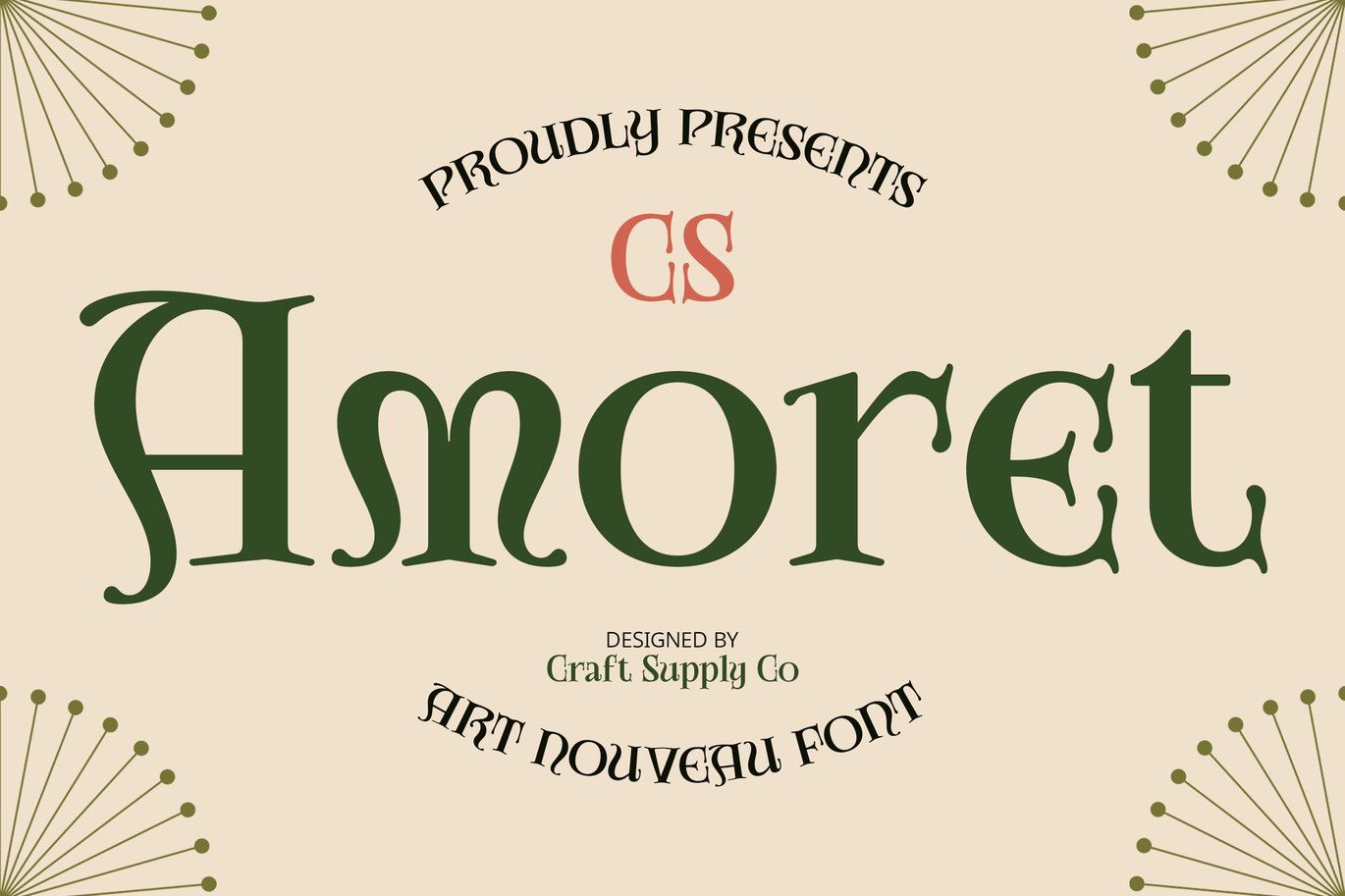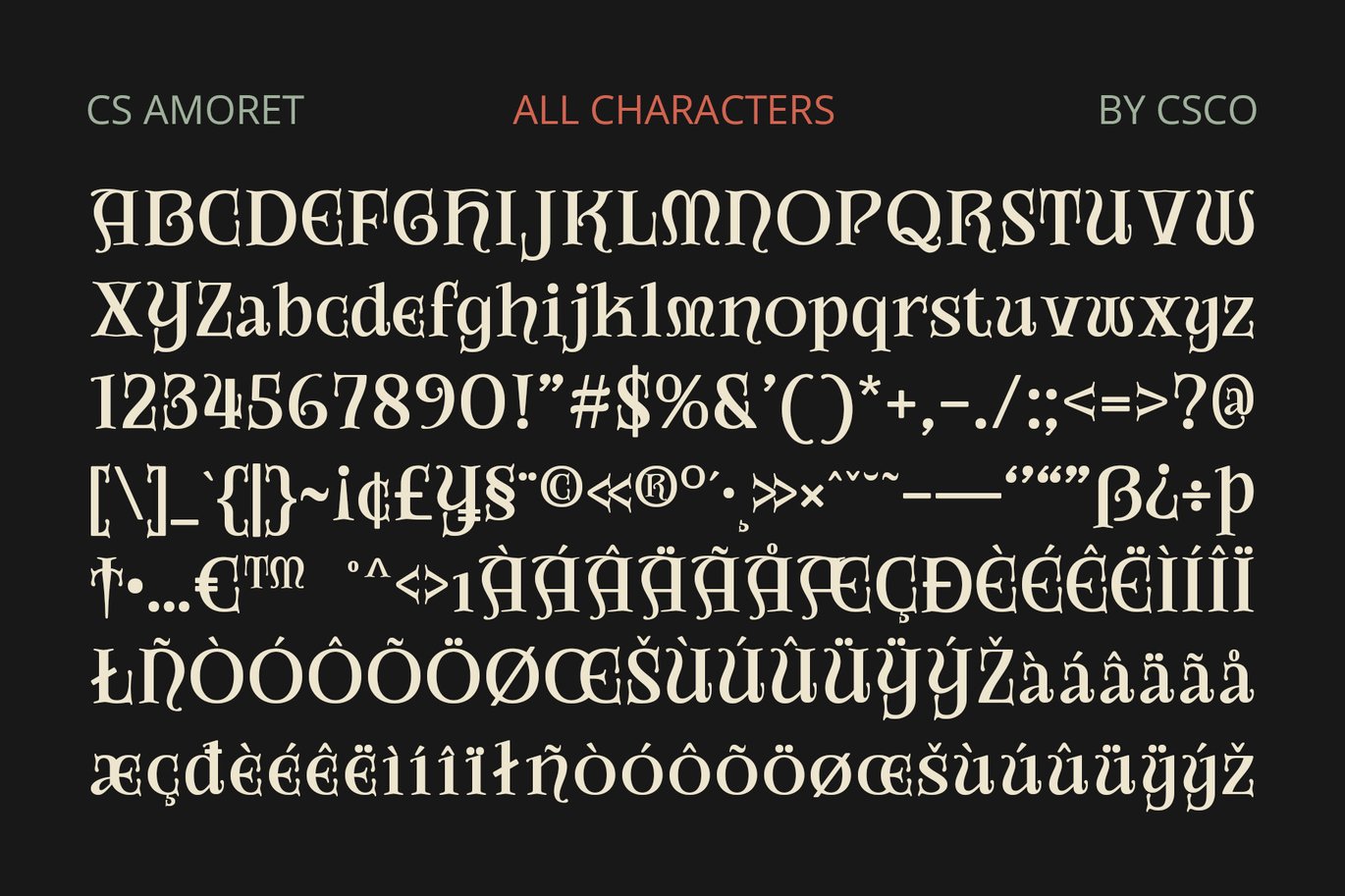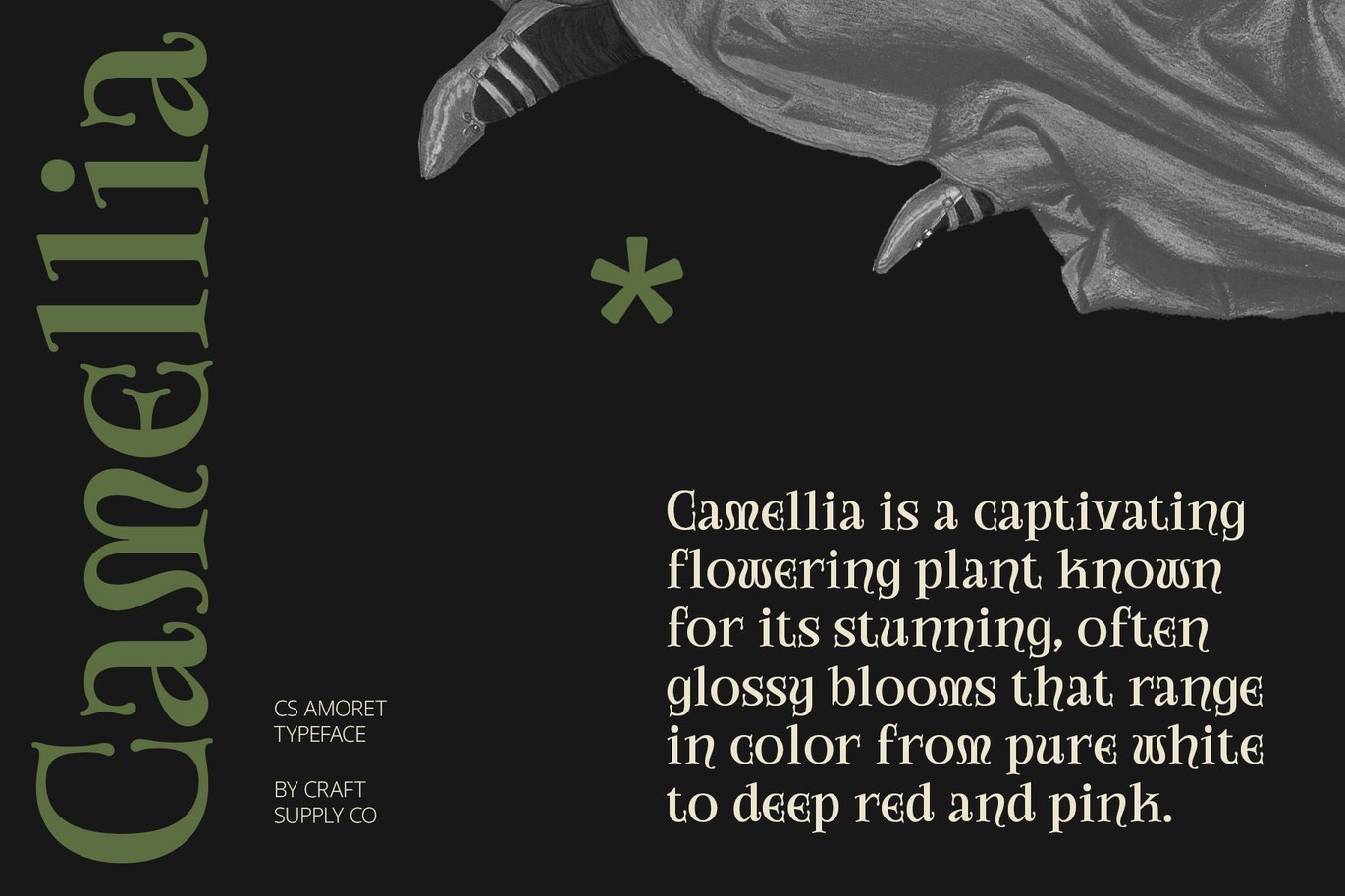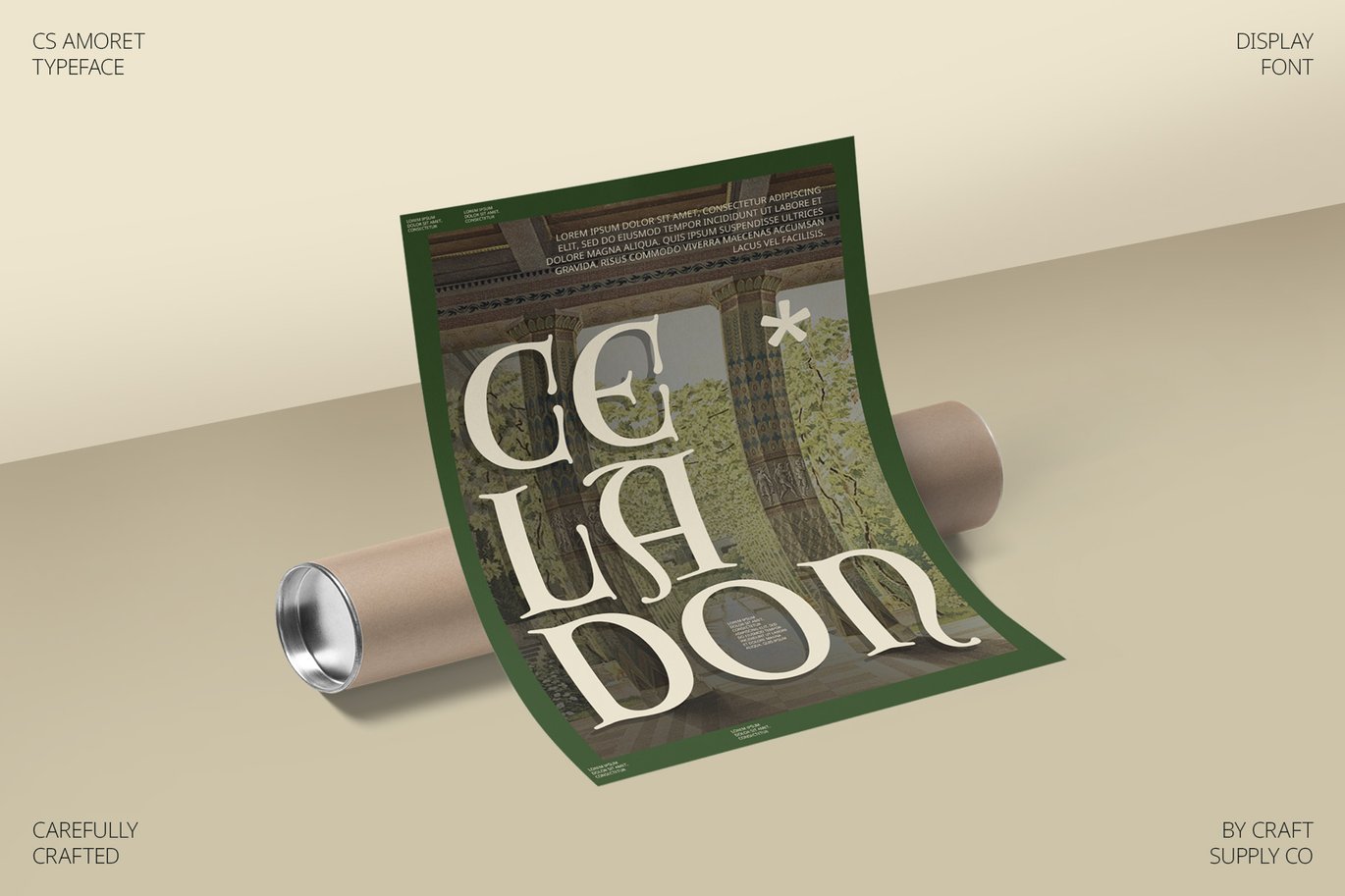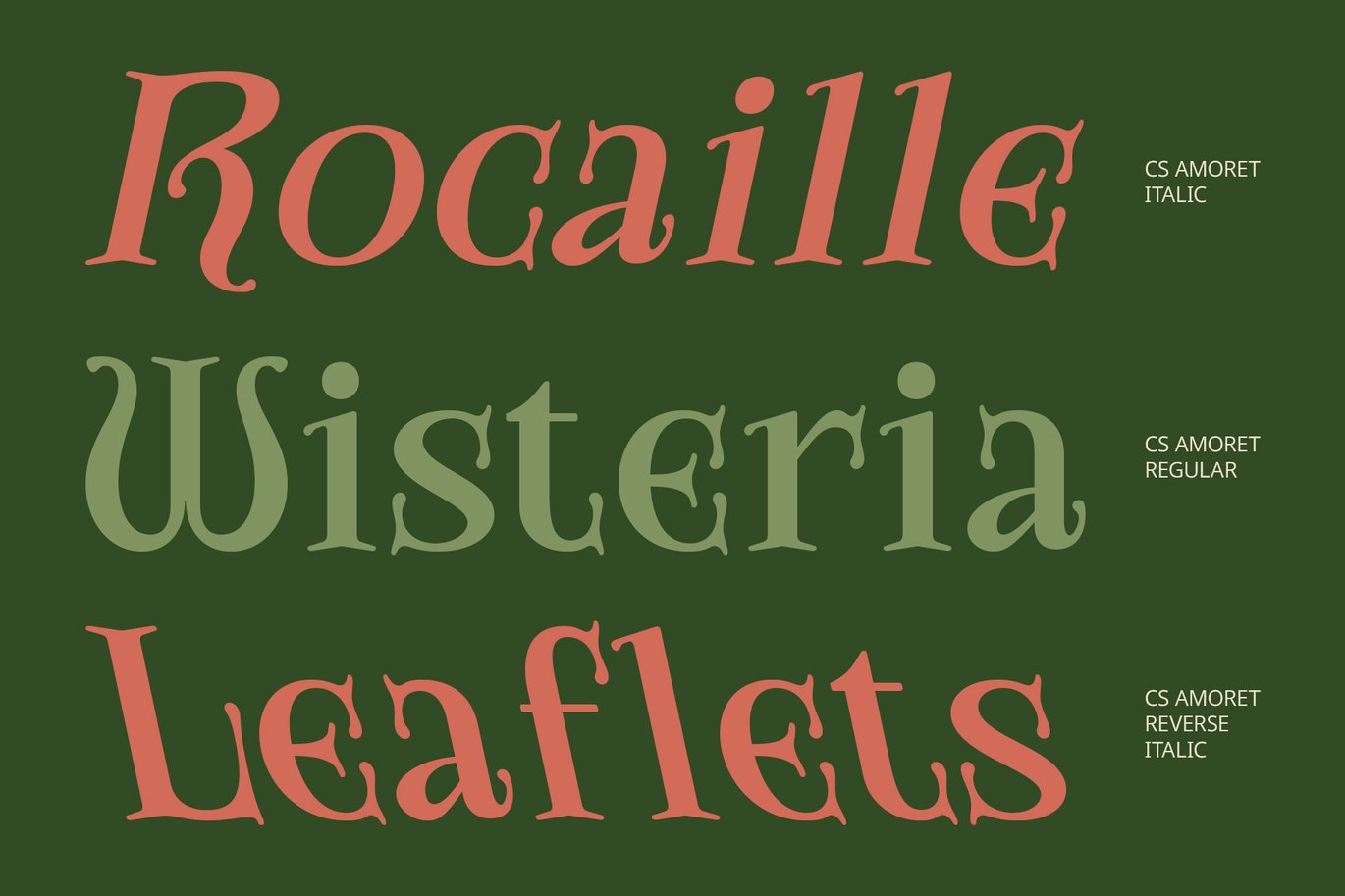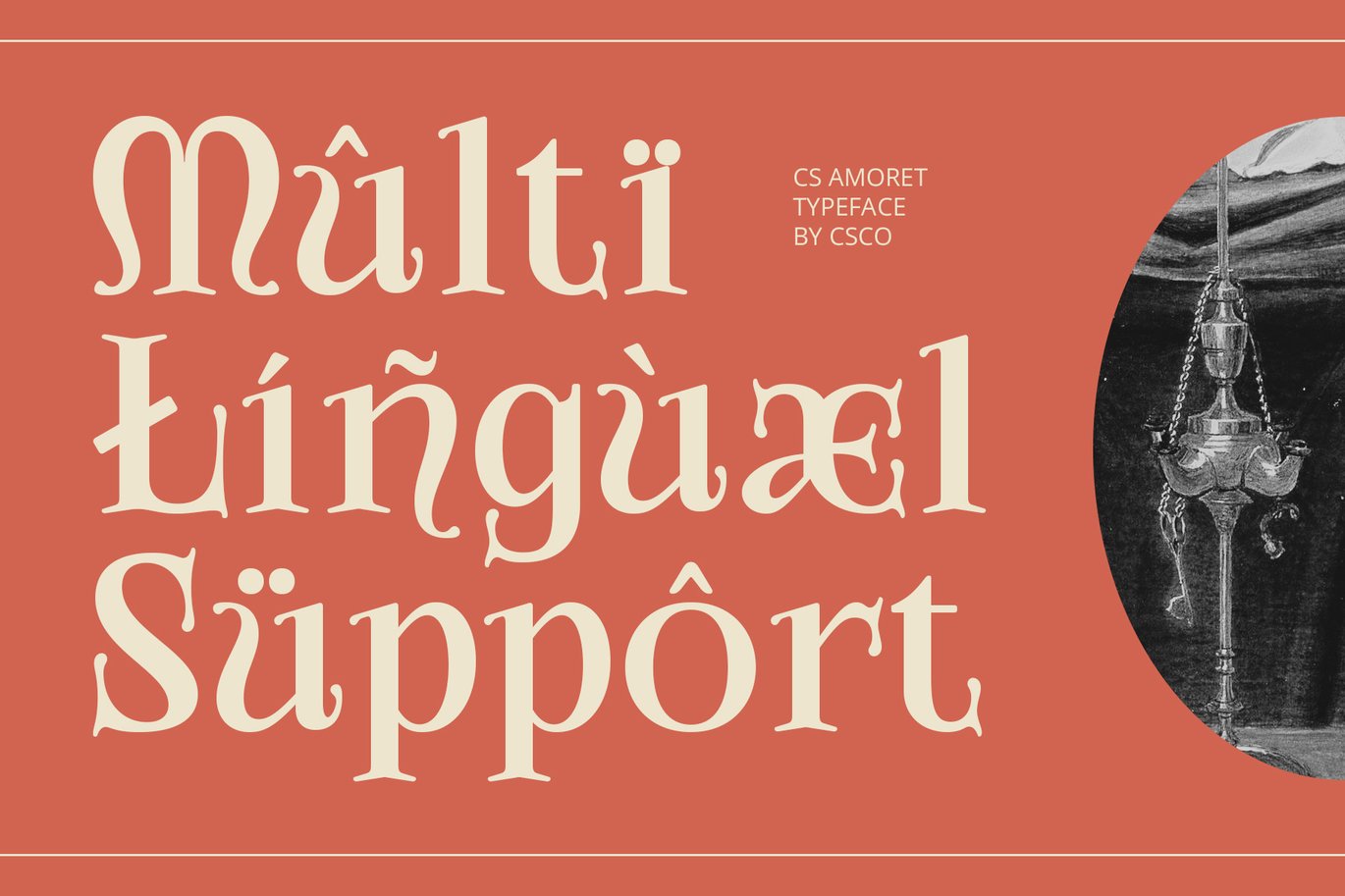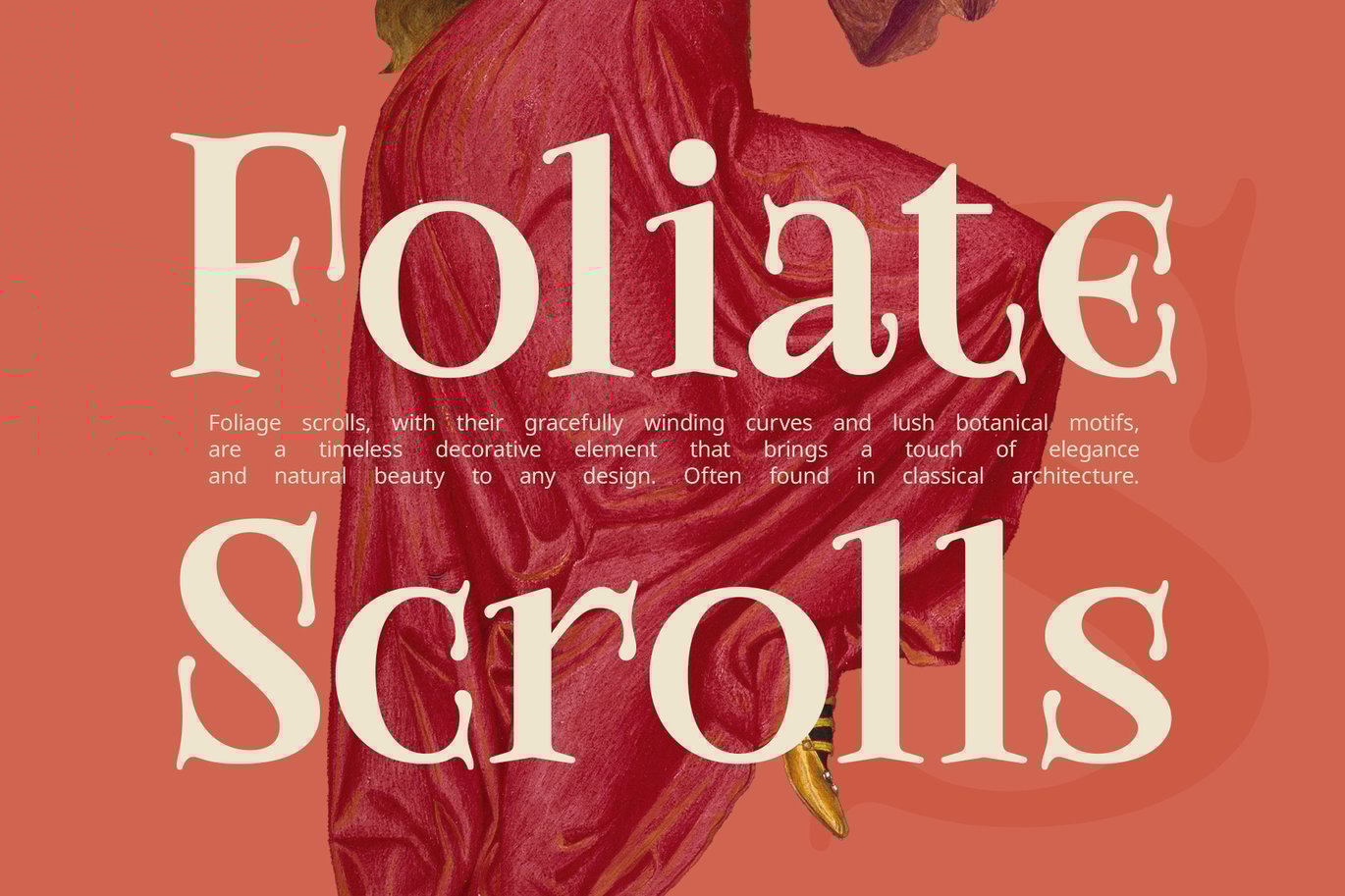
Amoret – Art Nouveau Font
CS Amoret Font: Art Nouveau Display Serif Font
Intricate and Flowing Design
CS Amoret is a display serif font that epitomizes the elegance and artistry of the Art Nouveau movement. Its design features intricate, flowing lines and ornate serifs, blending sophisticated beauty with imaginative flair. The font’s curvaceous letterforms and decorative elements are inspired by natural motifs and organic shapes, creating a visually captivating appearance that radiates timeless sophistication.
Elegant and Decorative Letterforms
Characterized by its elegant, curvaceous serifs and decorative flourishes, CS Amoret brings a unique artistic charm to any project. The font’s imaginative letterforms enhance its visual appeal, making it perfect for designs that require a touch of classic elegance and creative originality. Each character is crafted to evoke a sense of graceful beauty and artistic refinement, ideal for high-end branding, luxury publications, and artistic ventures.
Perfect for Timeless and Artistic Projects
Whether used in prestigious branding, elaborate invitations, or artistic design projects, CS Amoret ensures a refined and captivating presentation. Its Art Nouveau style, with its blend of intricate details and flowing forms, adds a touch of timeless elegance and creative charm to any design. Embrace the sophistication of the Art Nouveau era with CS Amoret and bring a unique, artistic flair to your high-end projects and visual creations.